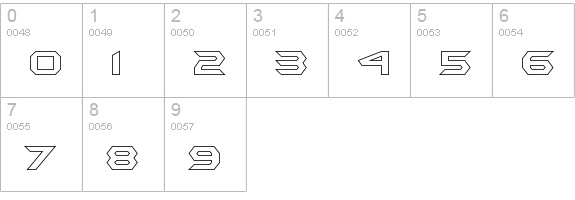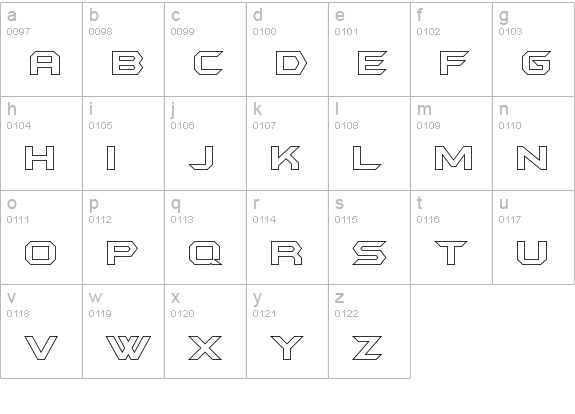
BatmanForeverOutline Font Details
Introducing BatmanForeverOutline font - a sleek and dynamic typeface that exudes a sense of mystery and adventure. This font is perfect for adding a touch of edgy sophistication to your designs, whether you're working on a poster, logo, or any other creative project. With its bold outlines and sharp angles, BatmanForeverOutline font captures the essence of the iconic superhero's world. Its unique character shapes and intricate details make it stand out from the crowd, making a powerful statement wherever it is used. Best of all, BatmanForeverOutline font is available for free download at FontsMarket.com. This means you can bring the dark and brooding aesthetic of Gotham City into your designs without breaking the bank. So why wait? Download BatmanForeverOutline font today and unleash your creativity with this captivating typeface.